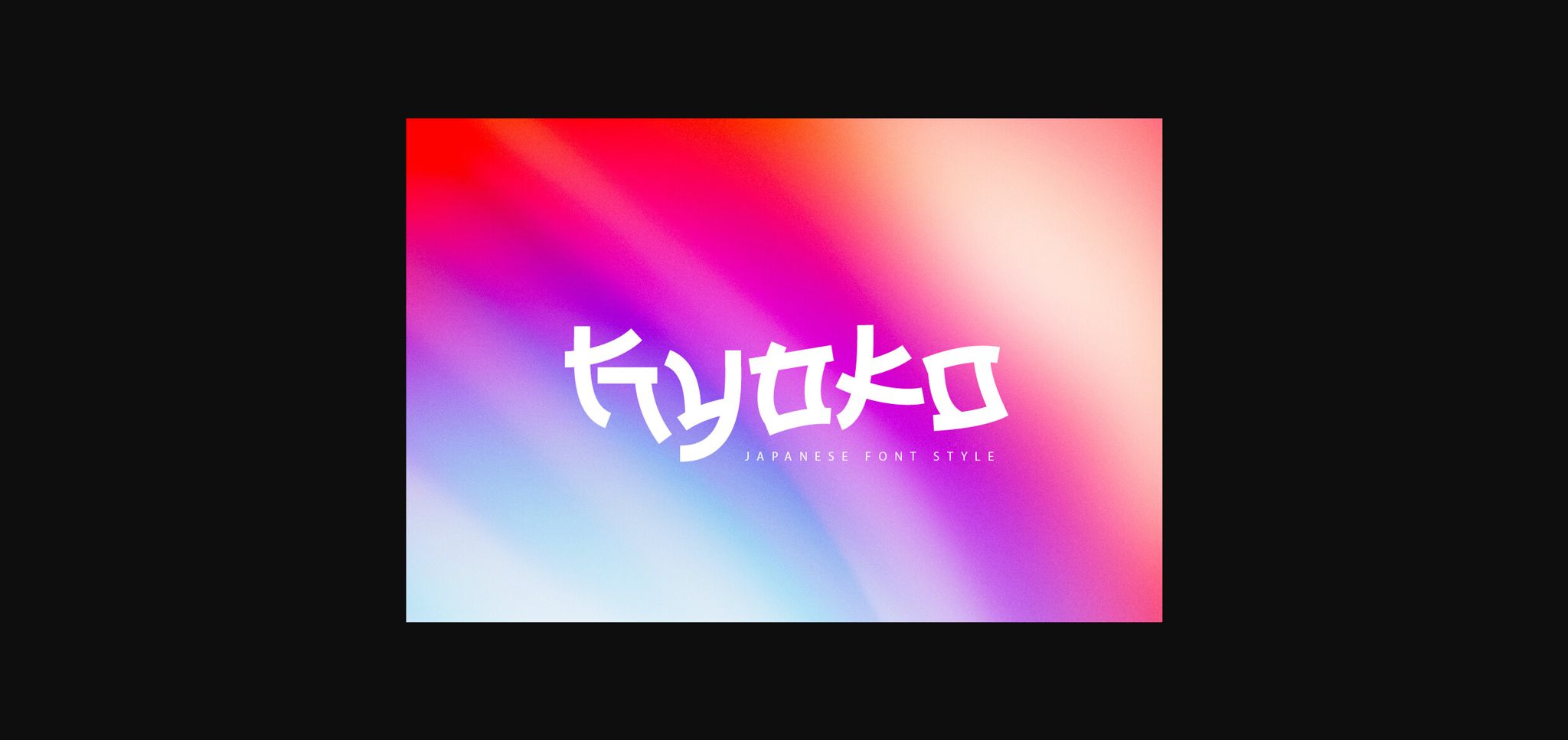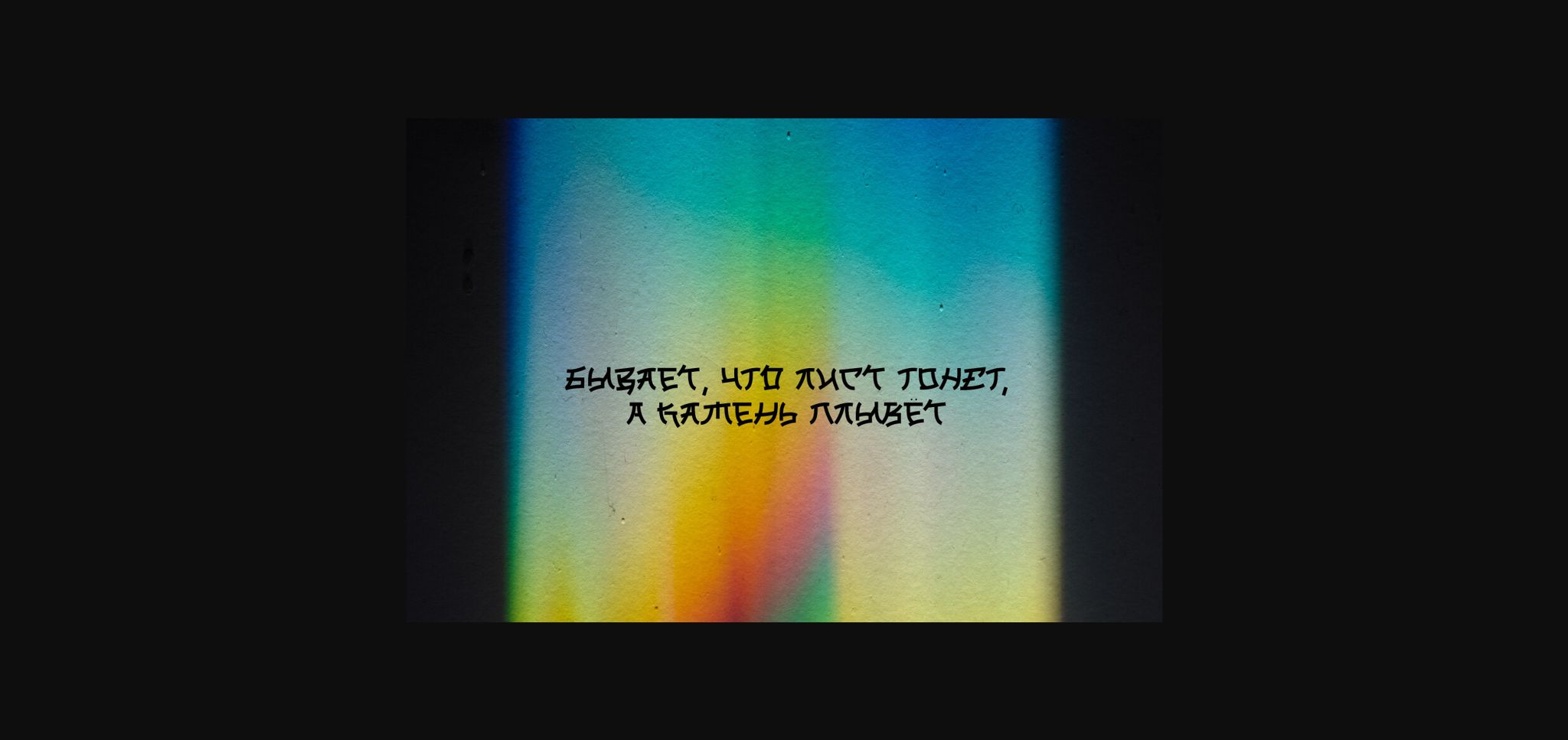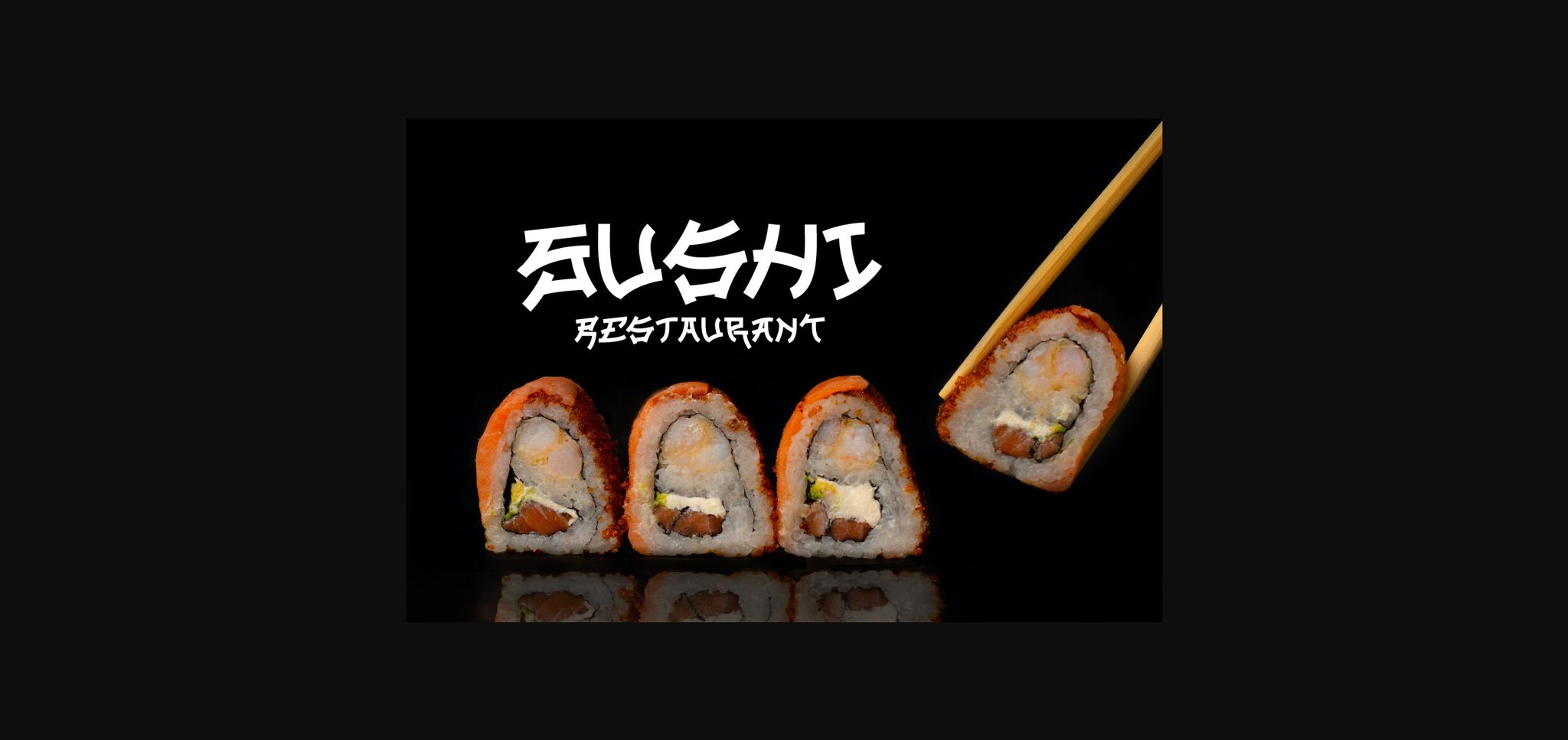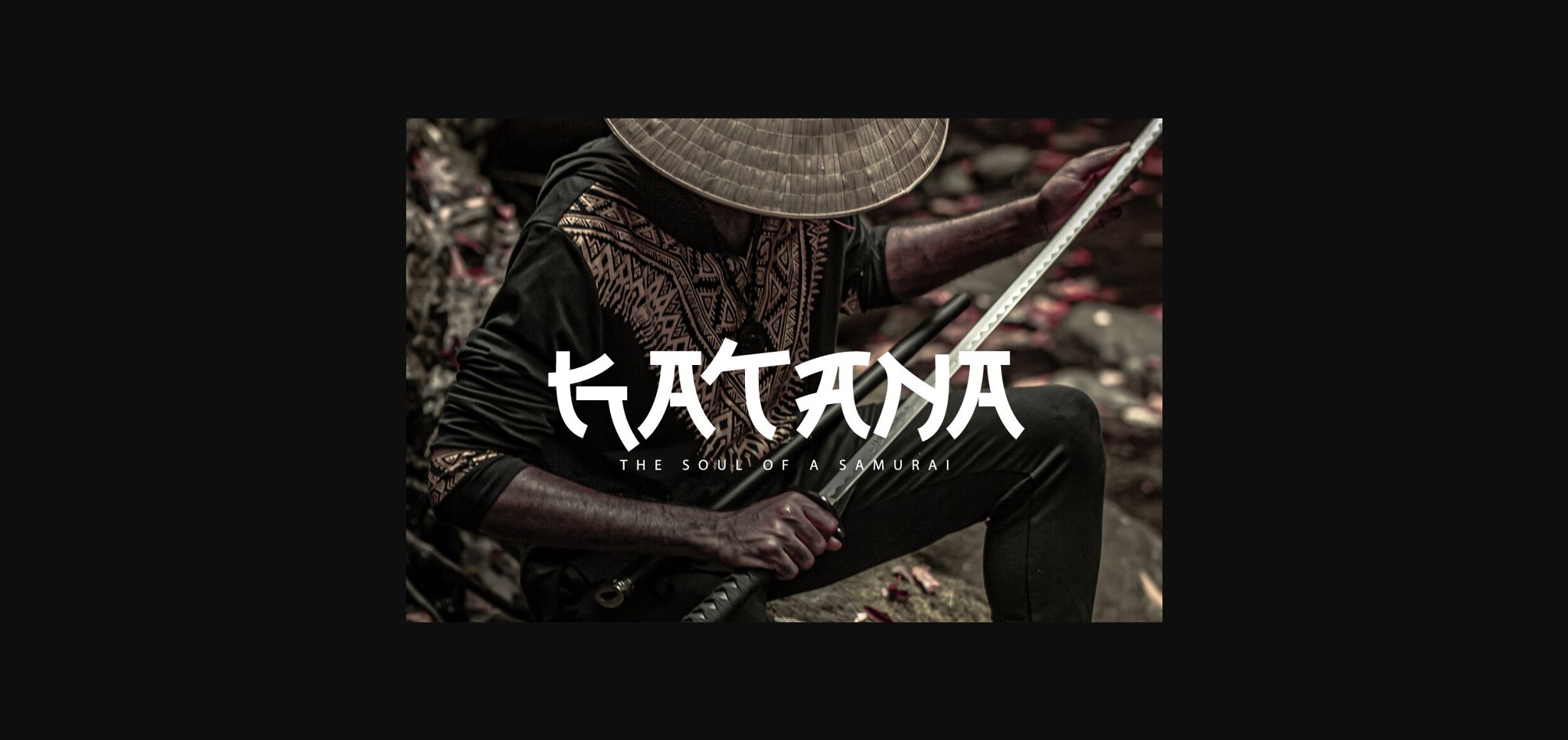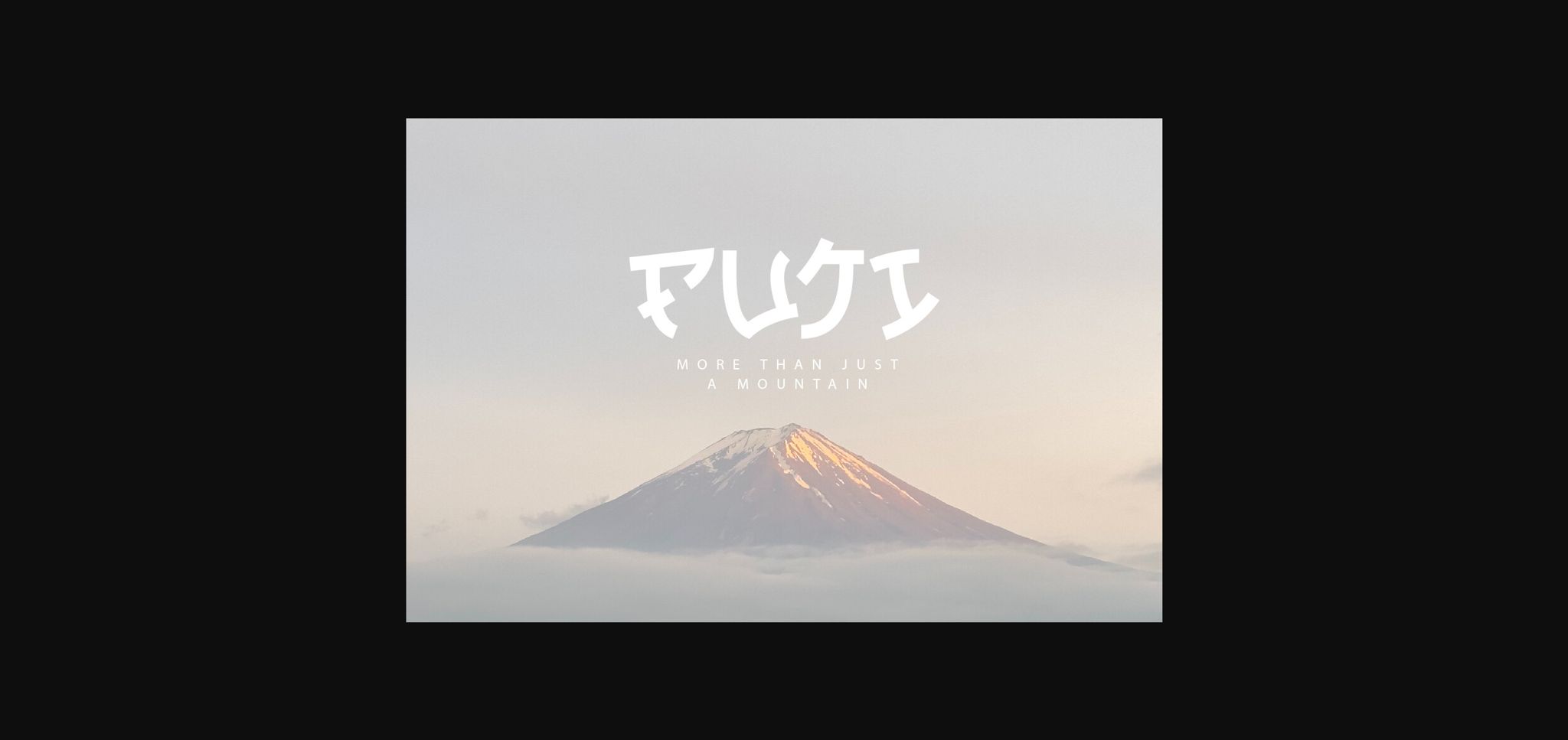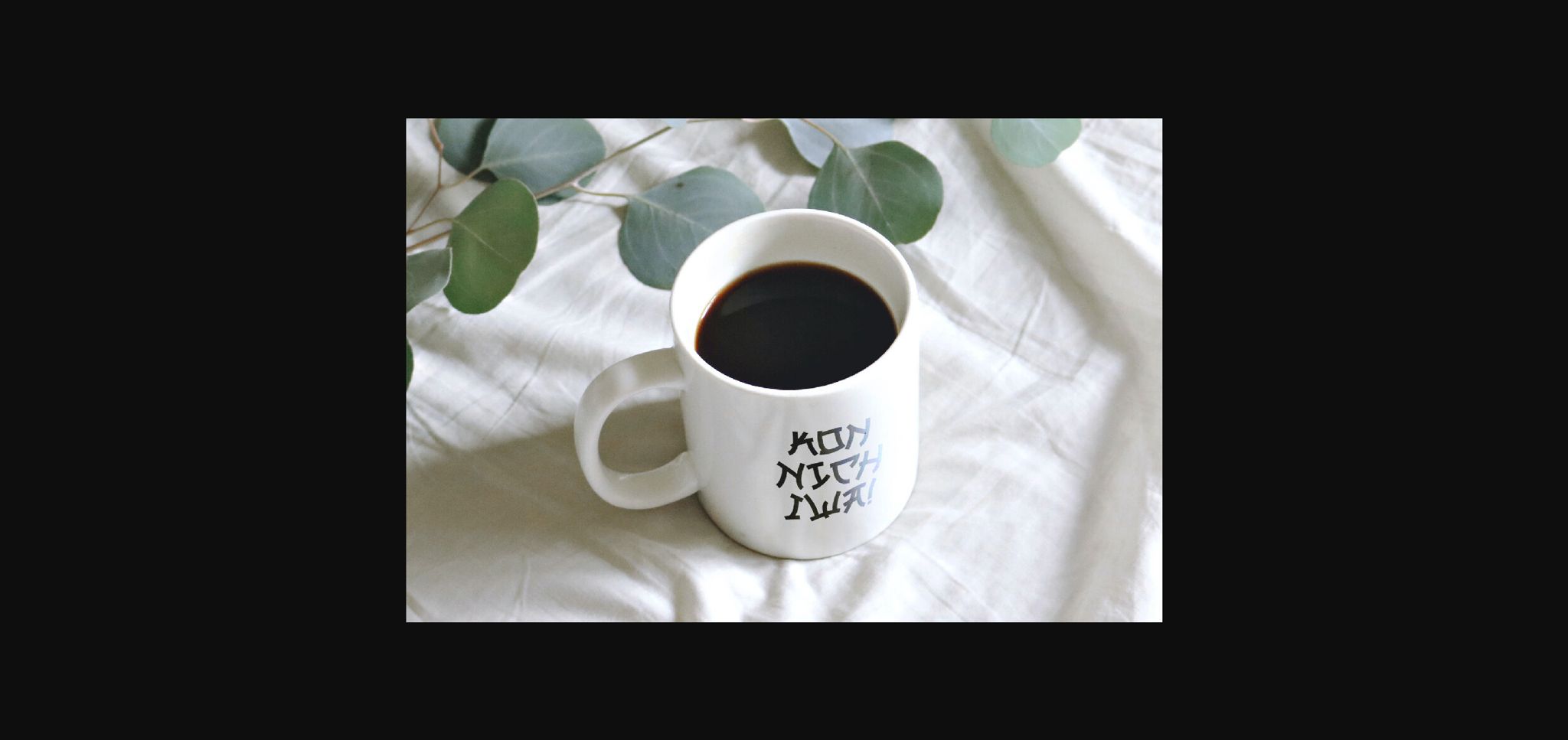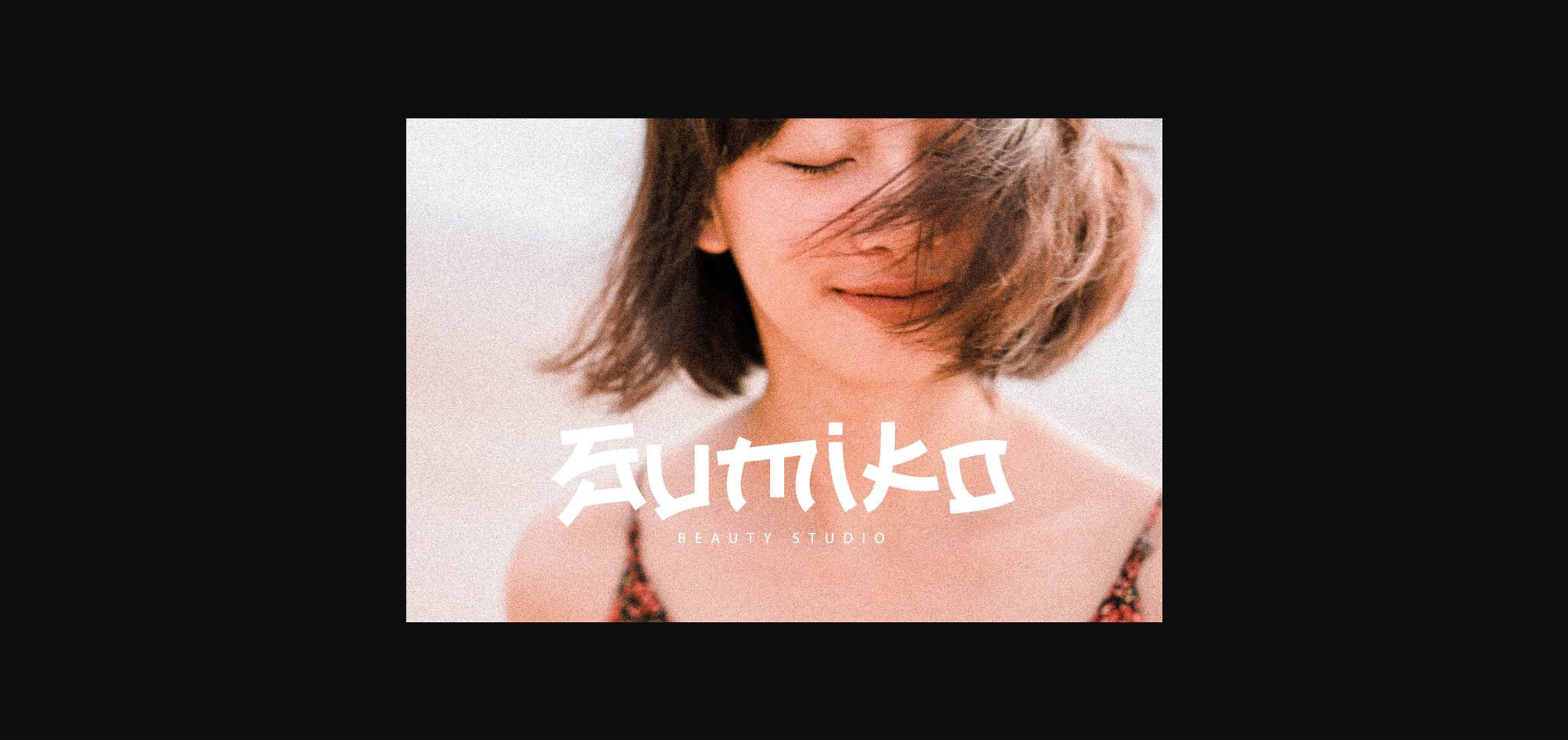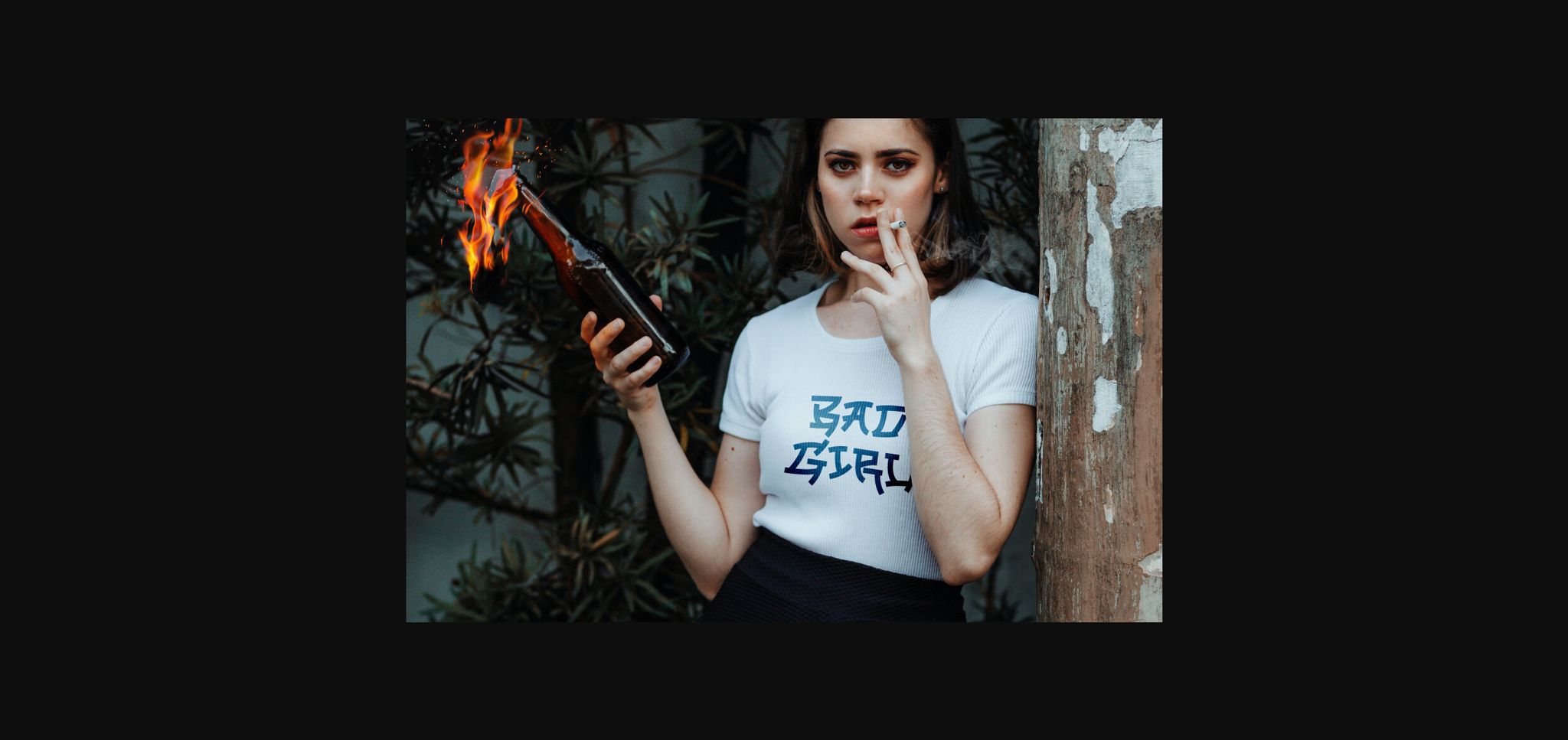
Kyoko Font
About Kyoko Font
Kyoko is a font inspired by Japan. It comes with uppercase and lowercase characters, set of punctuation marks, numbers, alternative set of latin characters, Cyrillic characters, ligatures and multilingual support.
Perfect for logos, quotes, posters, branding projects, product packaging, t-shirt, book cover, greeting cards and applicable for any graphic design.